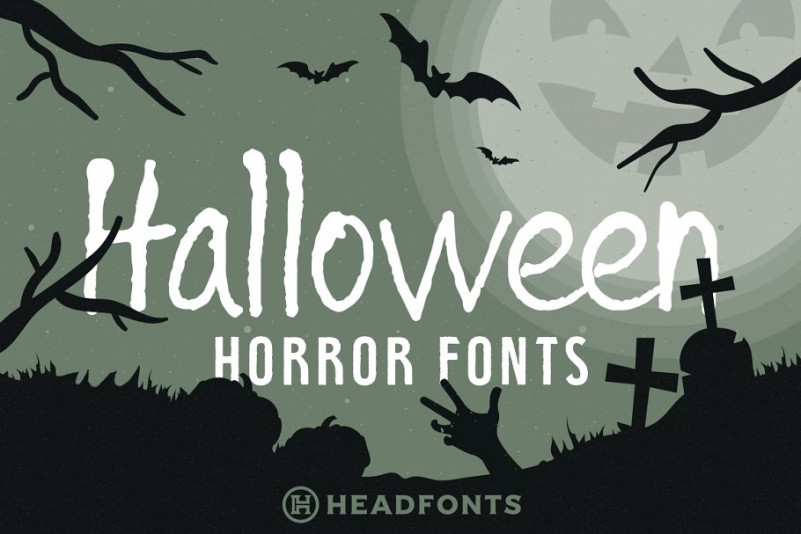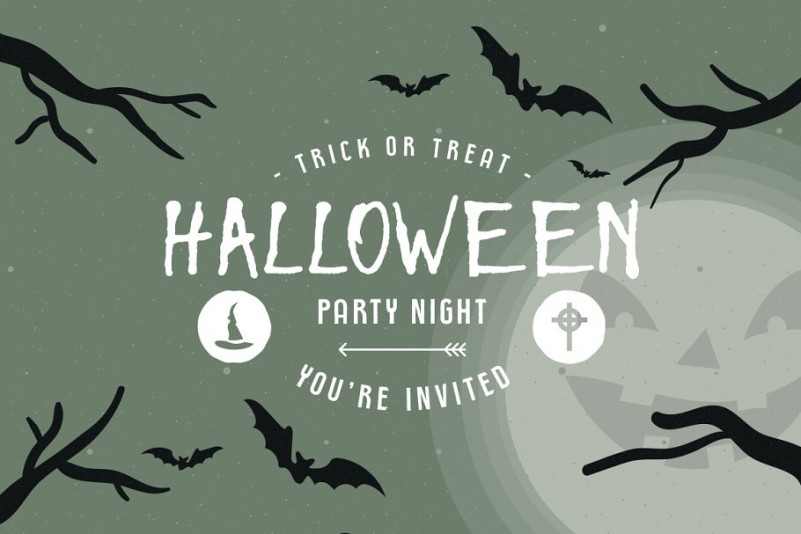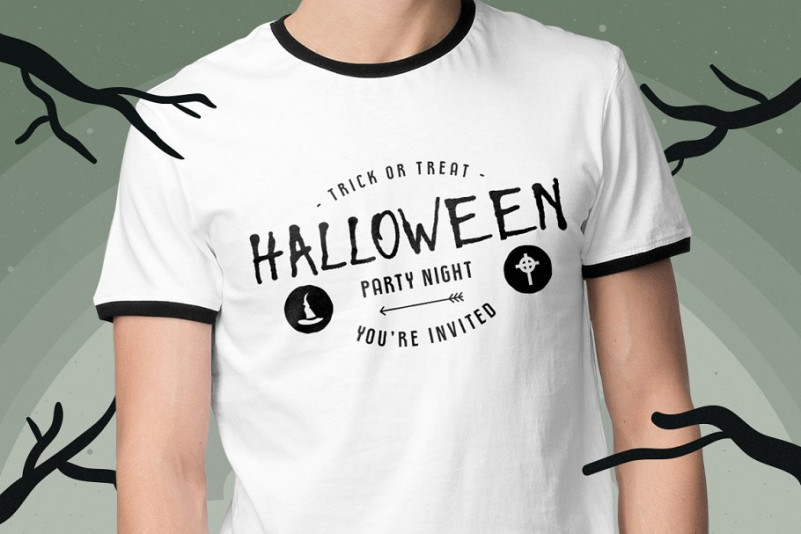
Halloween Horror Font
A very successful pairing of two fonts for your Halloween Party. If you want your design to stand out with the help of fonts, not just with illustrations, you came to the right place.